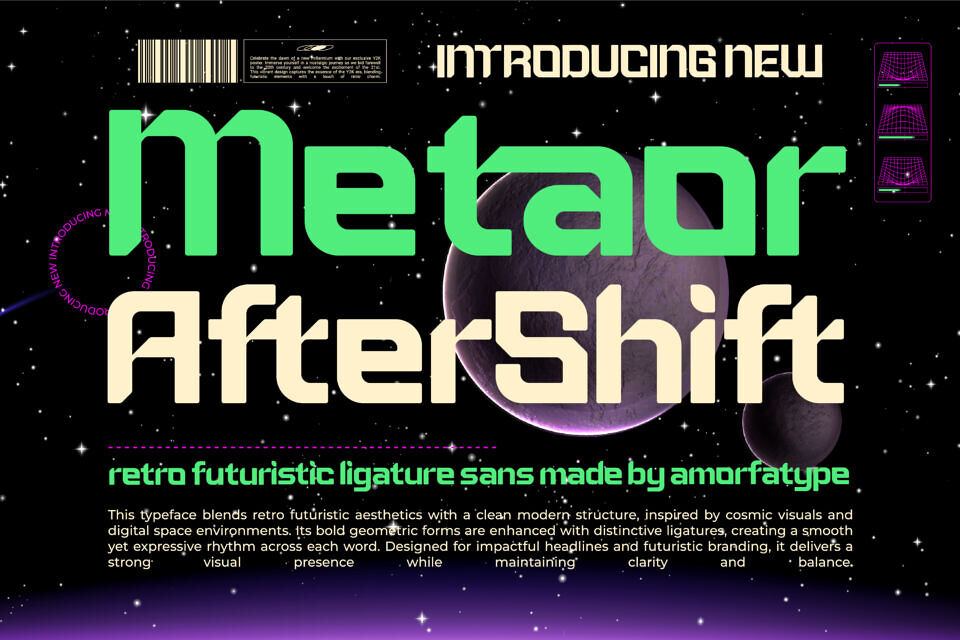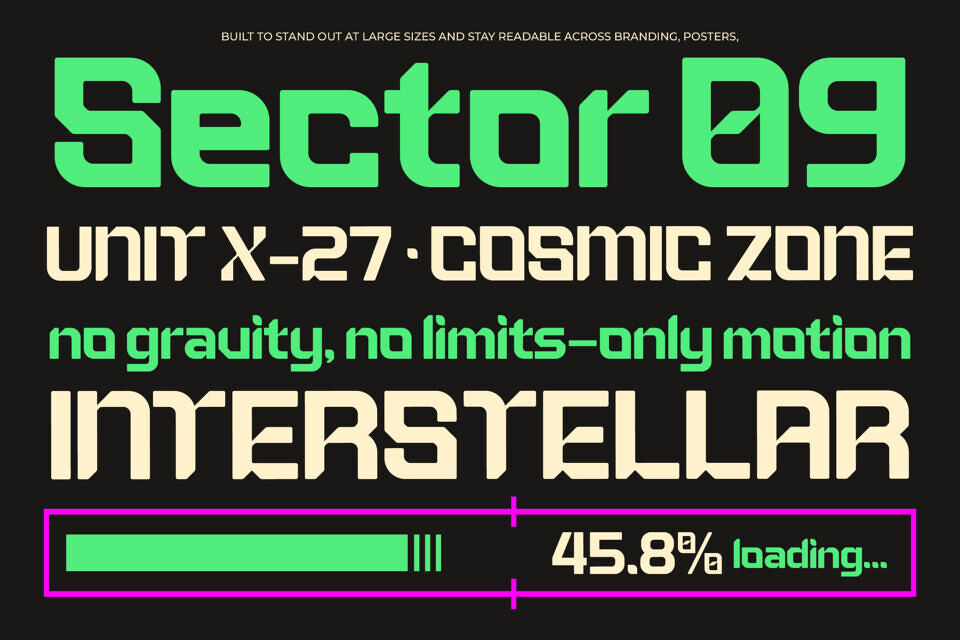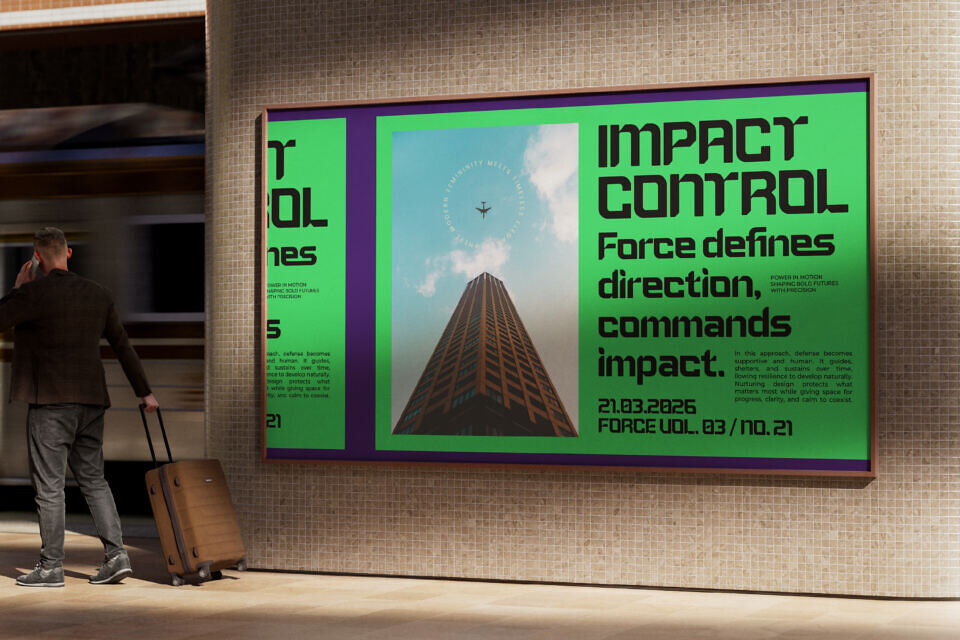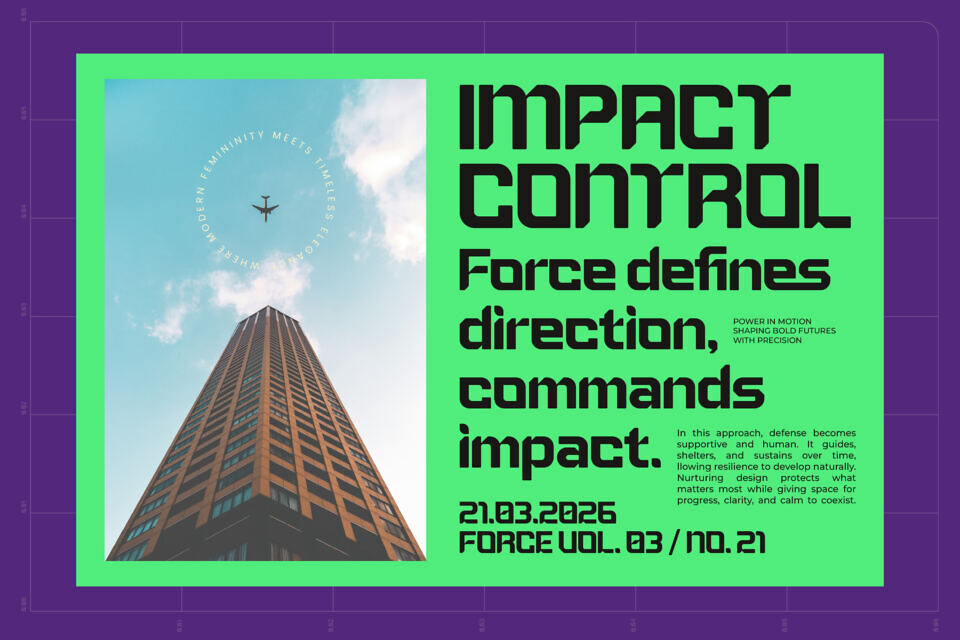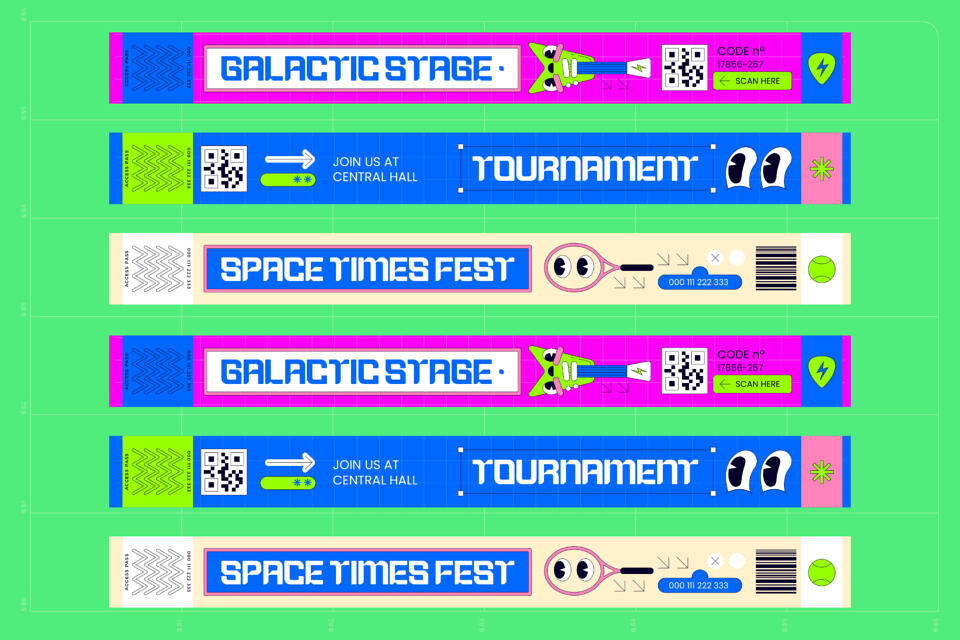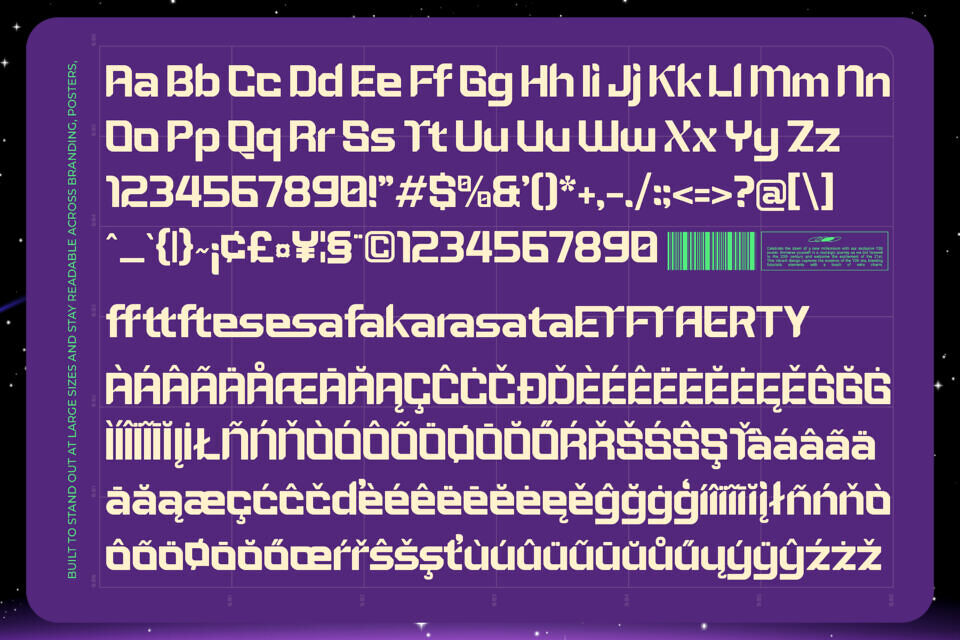
Metaor Aftershift Font
Metaor Aftershift is a bold retro futuristic sans serif inspired by sci-fi visuals, cyberpunk aesthetics, and digital-era design. Built with geometric shapes, sharp edges, and a strong modular structure, it delivers a striking and modern display look.
Perfect for tech branding, gaming, esports, posters, UI design, and bold headline compositions that need a strong visual impact. The font includes 12 ligatures and 5 alternates to help you create more dynamic and unique typography, with a total of 349 glyphs for versatile use across projects.